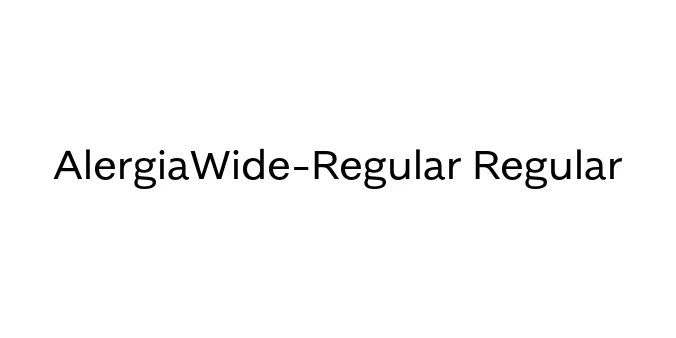
AlergiaWide-Regular Regular
Designed by Mateusz Machalski
| Category | Geometric Sans Serif |
| Designer | Mateusz Machalski |
AlergiaWide-Regular is a sophisticated geometric sans-serif typeface designed by the renowned Polish typographer Mateusz Machalski. Part of the larger Alergia family, this wide variant is characterized by its expansive horizontal proportions and a hybrid aesthetic that blends 19th-century grotesque influences with 20th-century geometric precision. The result is a typeface that feels both historical and futuristic, offering a unique typographic voice for modern creators.
The technical construction of AlergiaWide-Regular features a generous x-height and open apertures, which contribute to its exceptional legibility even in challenging display environments. Its clean, wide strokes and balanced weight distribution make it an ideal choice for high-end editorial work, corporate identity systems, and minimalist digital interfaces. Whether used in print or on-screen, it maintains a command over the space it occupies, conveying a sense of stability and contemporary elegance.
AlergiaWide-Regular Best Uses
Optimized for high-impact hero sections and sleek, minimalist landing pages.
Excellent for developing sturdy and professional logos that require a modern edge.
Provides a bold and authoritative presence for magazine titles and advertising copy.
Works beautifully for artistic layouts where wide typography can dictate the page flow.